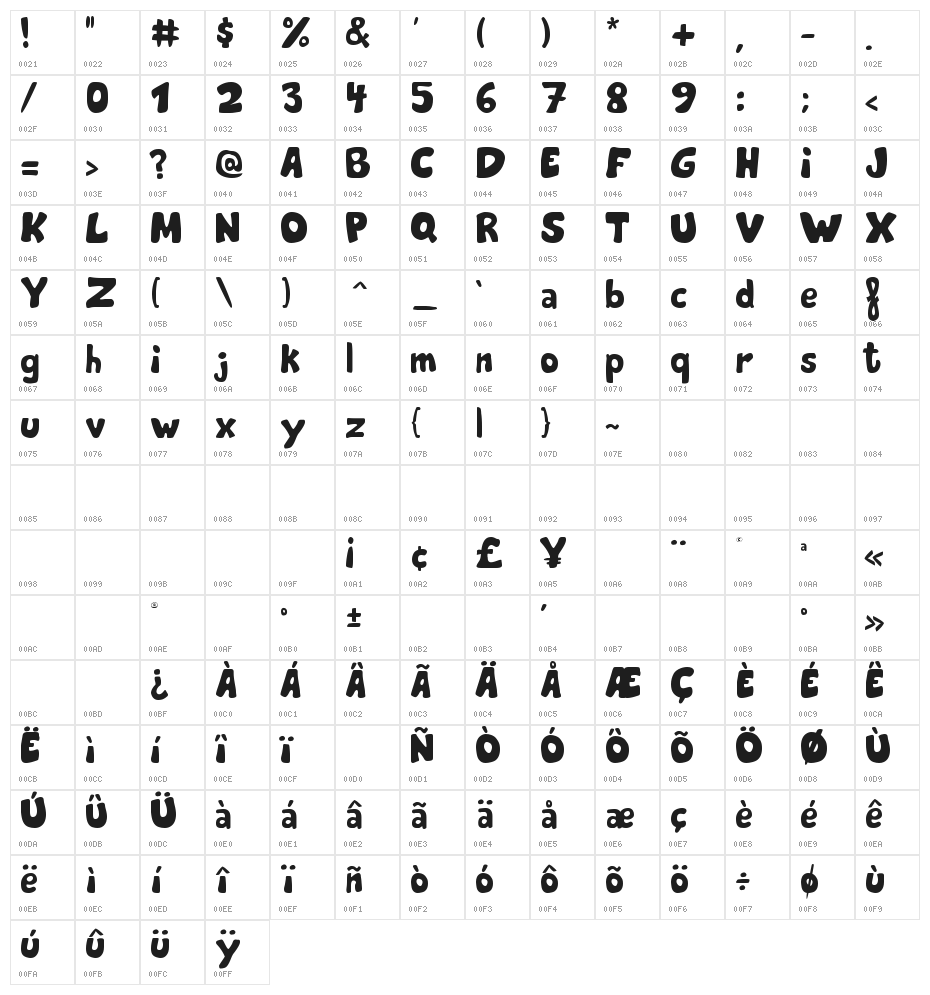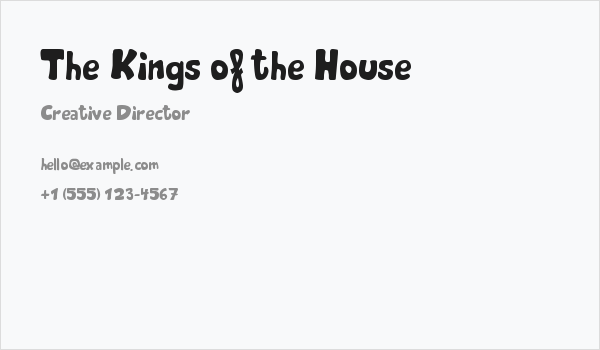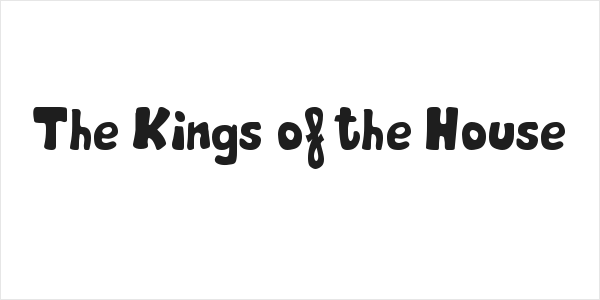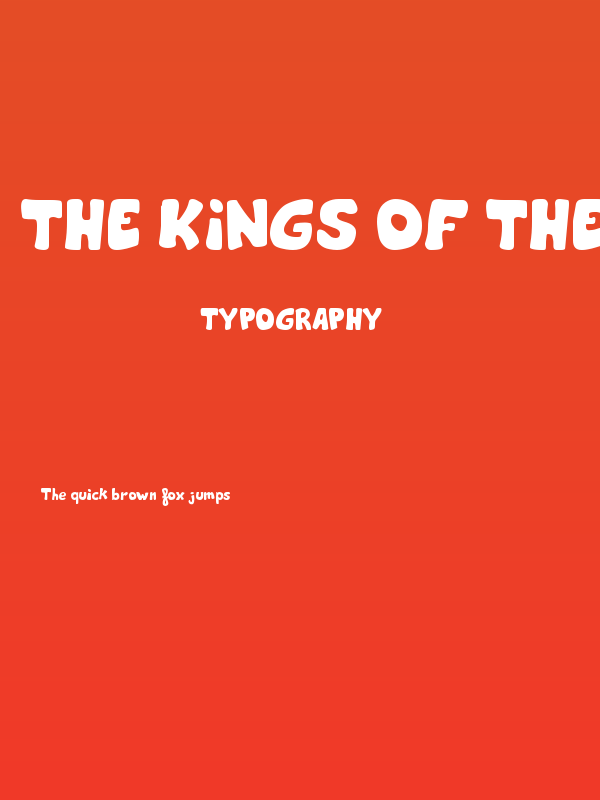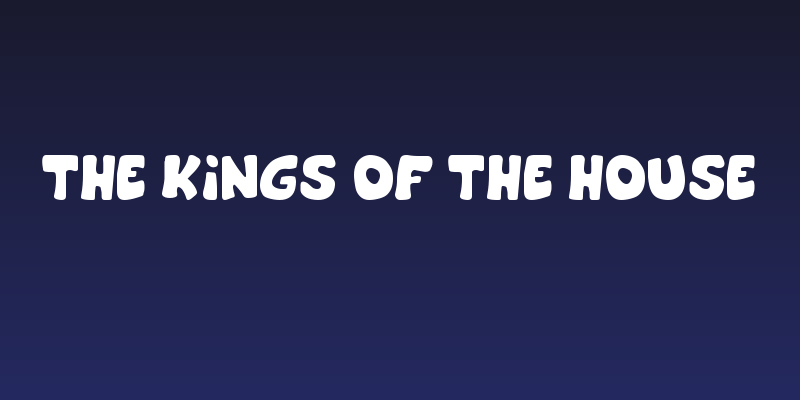
The Kings of the House Font
The Kings of the House Description
This playful and bold font features a unique, hand-drawn style with rounded edges and a slightly irregular shape, giving it a whimsical and friendly appearance. The characters are thick and substantial, making them highly visible and impactful. The font maintains a consistent weight throughout, with a slightly condensed width that adds to its charm. The character spacing is normal, ensuring readability while preserving its distinctive style. The font's high contrast between the thick strokes and the negative space enhances its legibility and visual appeal. Its overall style is decorative and modern, making it suitable for a variety of creative applications.
| Proposed Projects | Ideal for children's books, playful branding, posters, and creative packaging. |